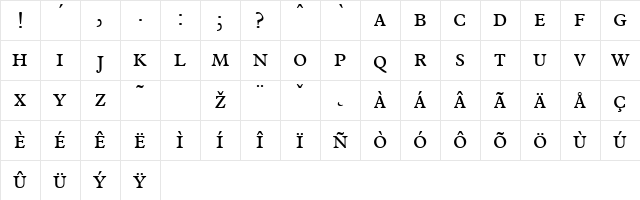
Plantin for oup 97 Small Caps Regular
Design Context for Plantin for oup 97 Small Caps
Plantin for oup 97 Small Caps is a composed and adaptable typeface that performs quietly and consistently across a wide range of design contexts.